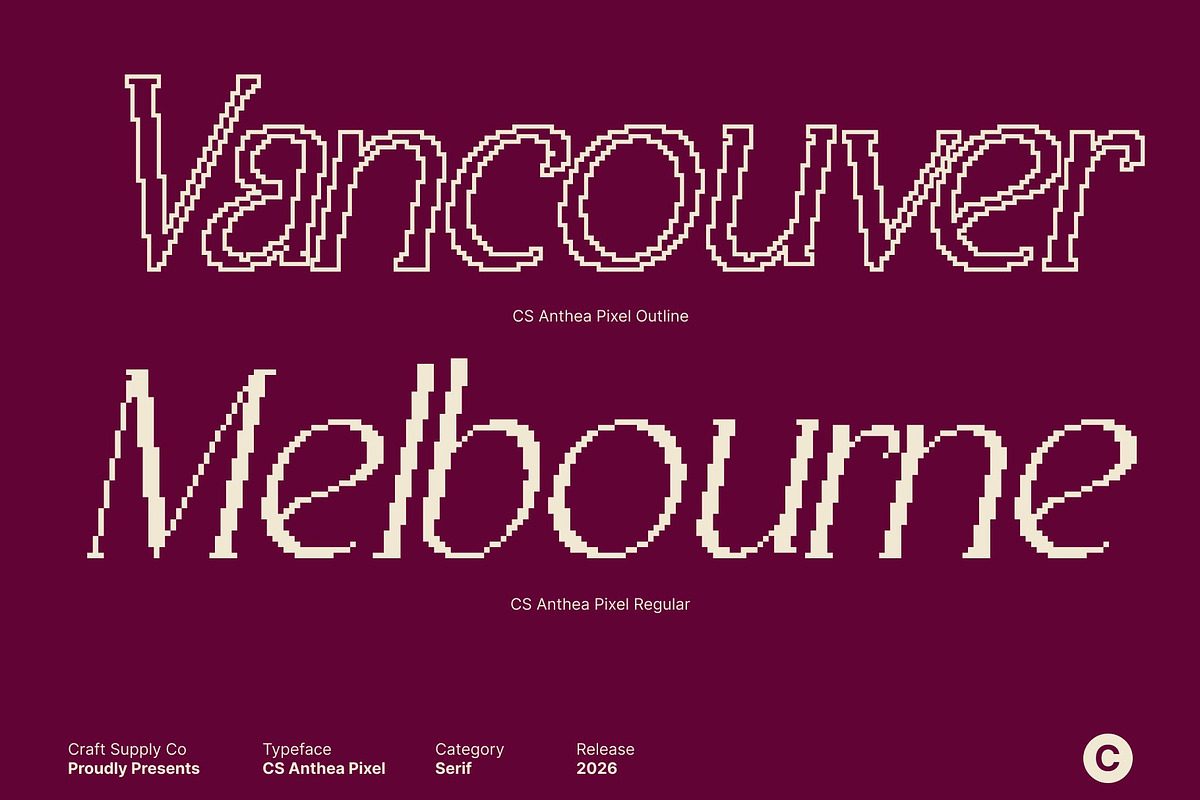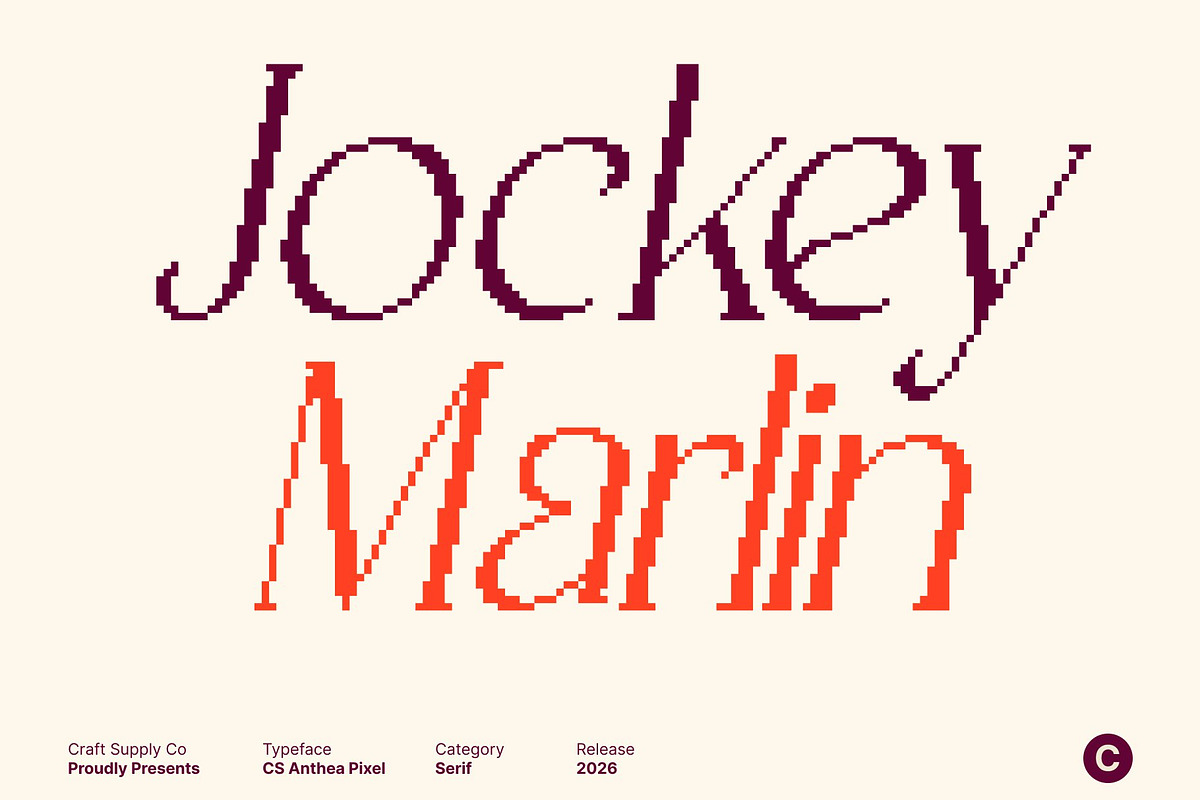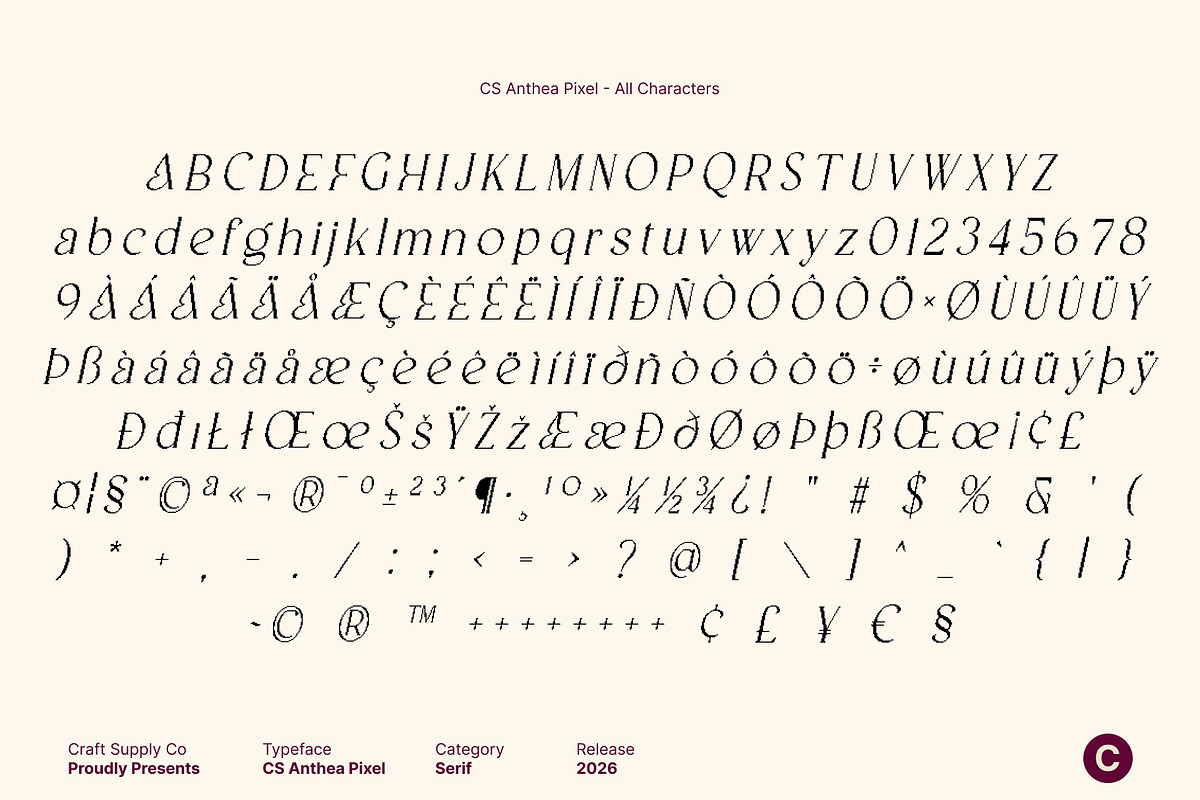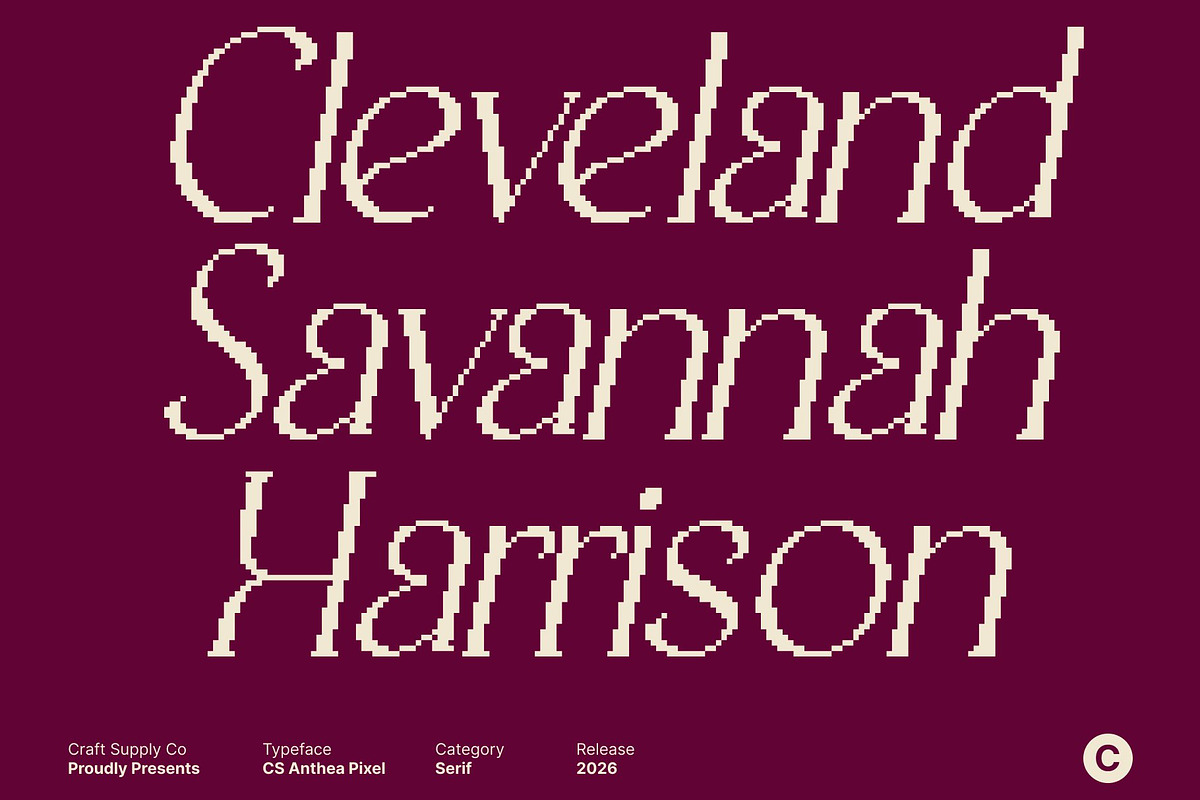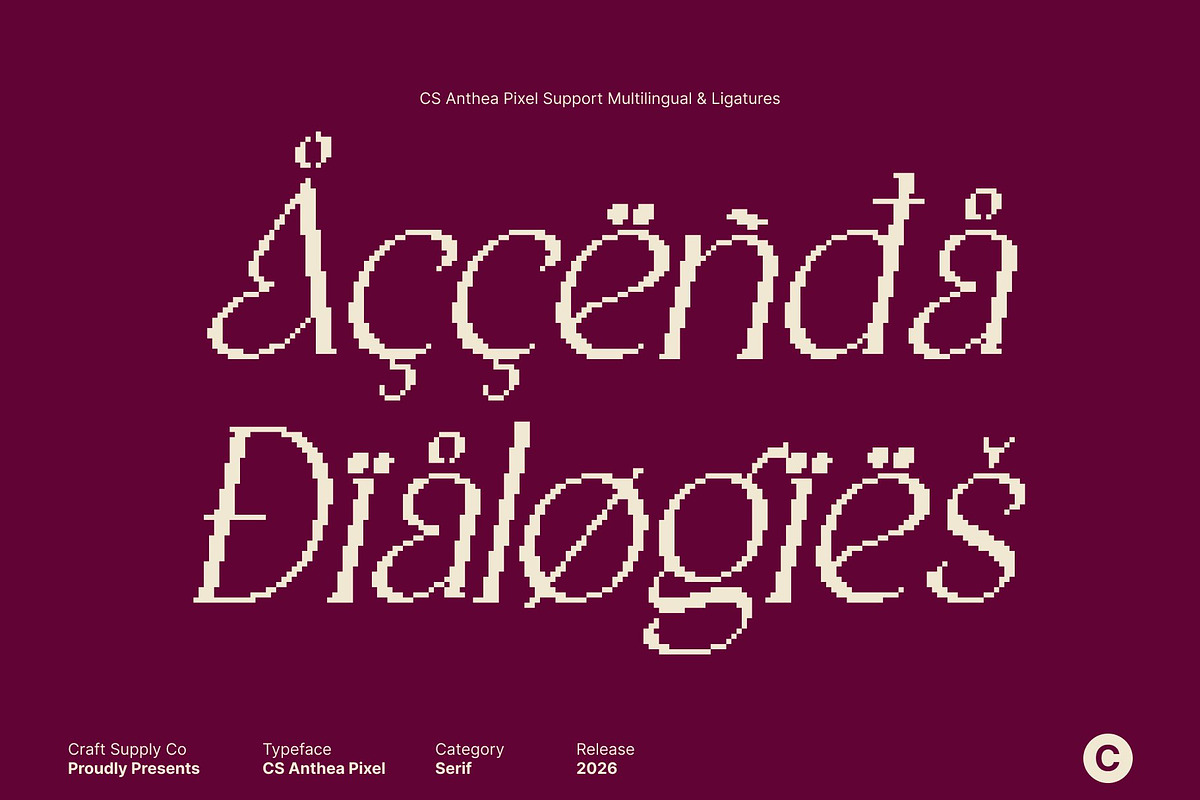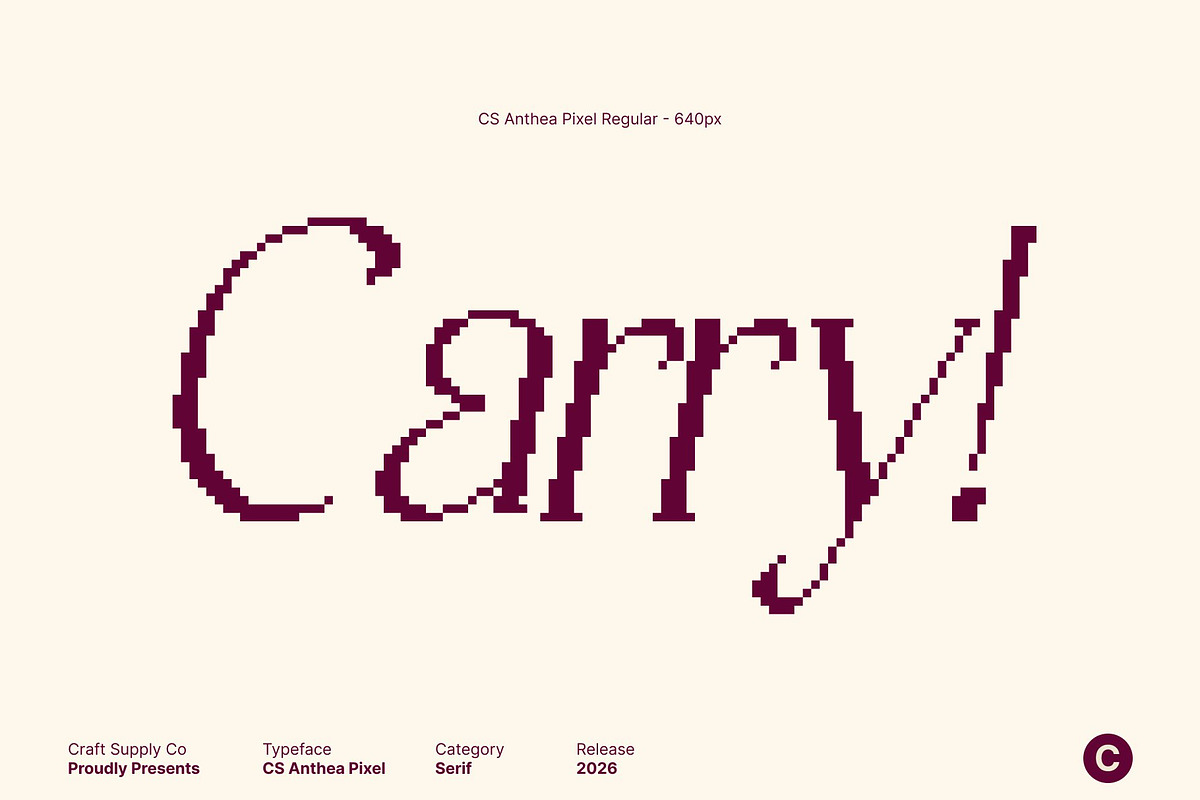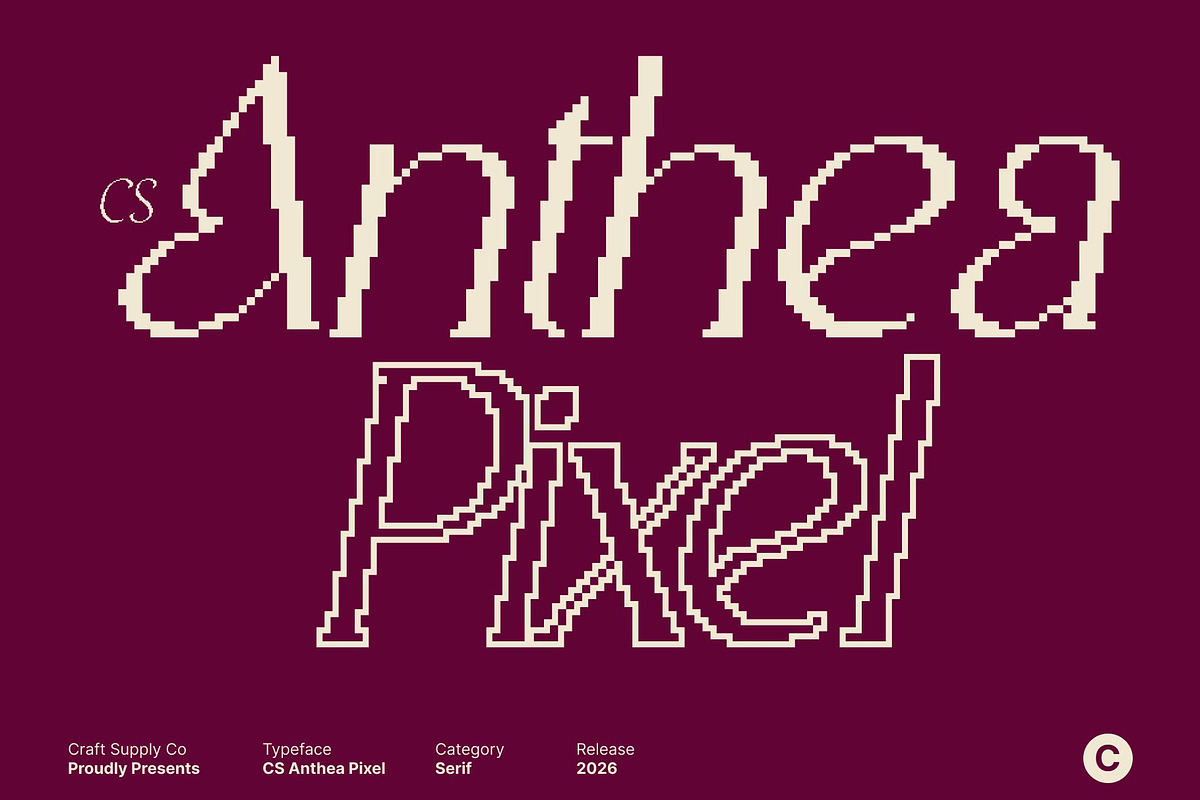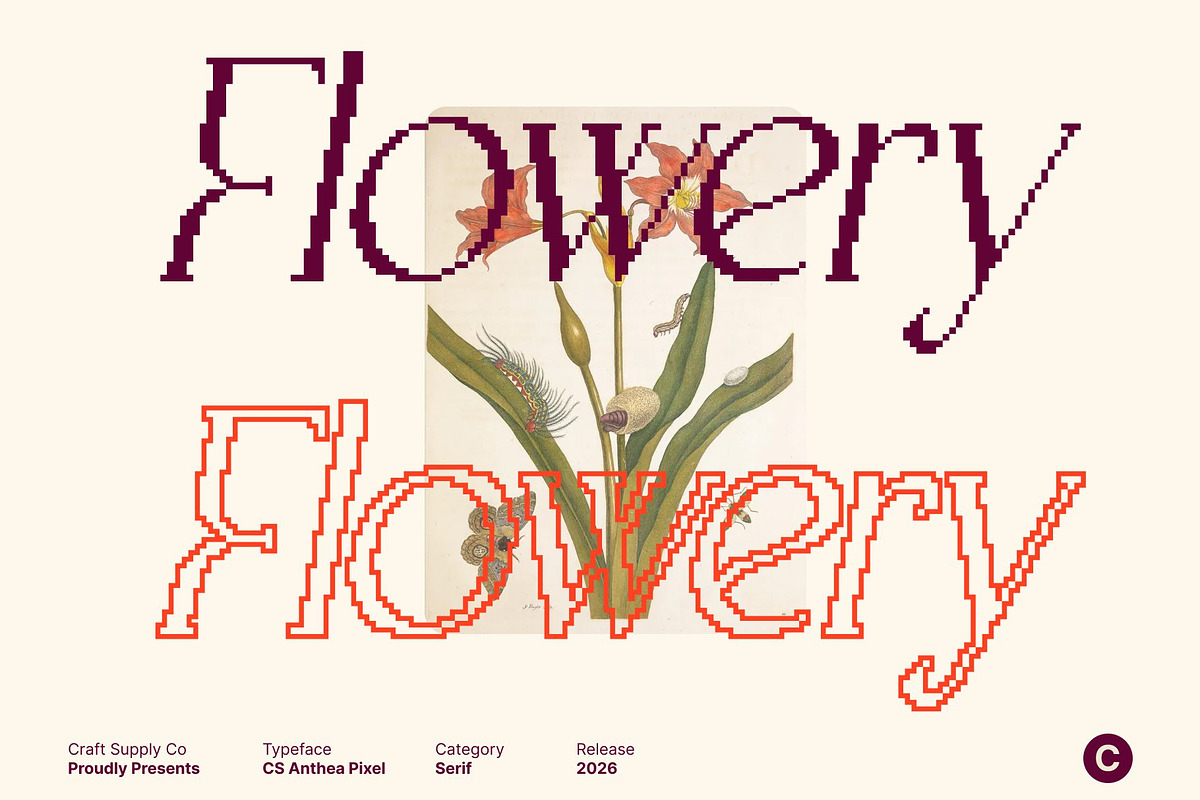
CS Anthea Pixel
CS Anthea Pixel – Refined Elegance with Timeless Sophistication
Elegant Serif with High-End Character This is an elegant serif typeface created to deliver a refined and luxurious visual experience. Its carefully constructed letterforms and balanced proportions convey polish, confidence, and quiet sophistication. Rooted in classic serif traditions and enhanced with subtle modern styling, this font offers a timeless aesthetic that elevates any design with grace and authority.
Refined Curves and Thoughtful Details The beauty of this font lies in its smooth curves and meticulously crafted details. Each character blends soft transitions with structured serif elements, resulting in a harmonious and stylish appearance. The pixel-based structure adds a refined digital precision, reinforcing its exclusive and high-quality feel.
Classic Influence with Modern Sensibility This font seamlessly merges classical serif elegance with contemporary nuance. This balance allows the font to feel enduring yet relevant, making it adaptable across a wide range of design contexts. Its refined tone supports sophisticated storytelling while maintaining excellent readability.
Perfect for Editorial, Fashion, and Branding Designed for premium applications, excels in editorial layouts, book typography, luxury packaging, fashion visuals, and branding. Whether used for headlines, body text, or logos, it delivers a sense of elegance, professionalism, and timeless sophistication.
CS Anthea Pixel Regular
CS Anthea Pixel Outline